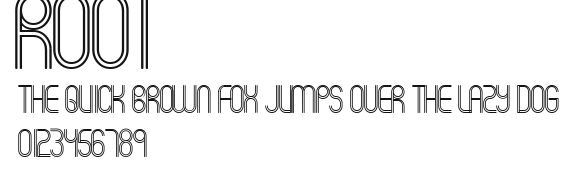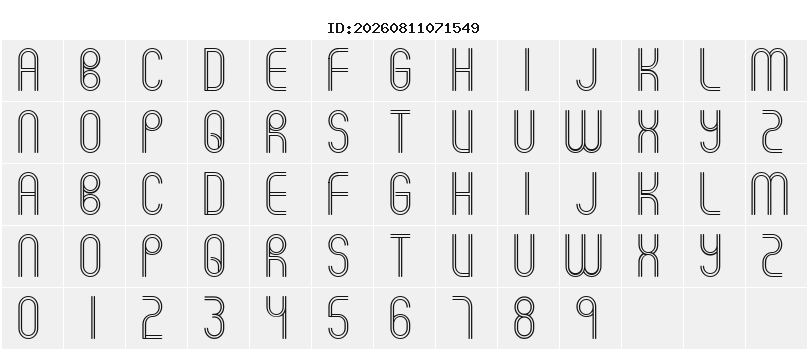
• Font Name: Root
Root.ttf is a modern, elegant sans-serif font designed for ultimate readability and visual harmony. Perfect for branding, headlines, web design, and print materials.